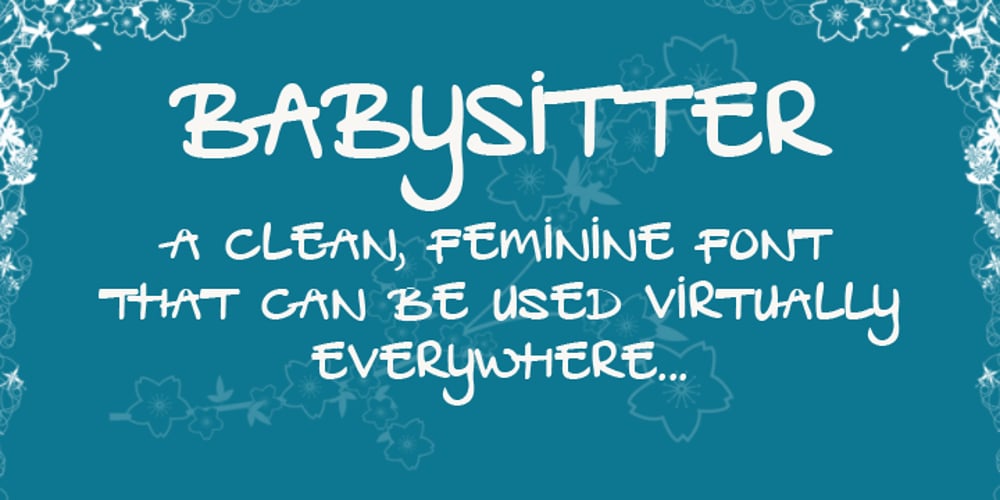
Babysitter Font Family was designed by David Kerkhoff, Stephanie Oei and published by Hanoded. Babysitter contains 1 styles and family package options. Babysitter is a nice, feminine font. It can be used for a variety of purposes. Very unobtrusive in nature, yet with a big impact! Comes with all the accents, bells and whistles.